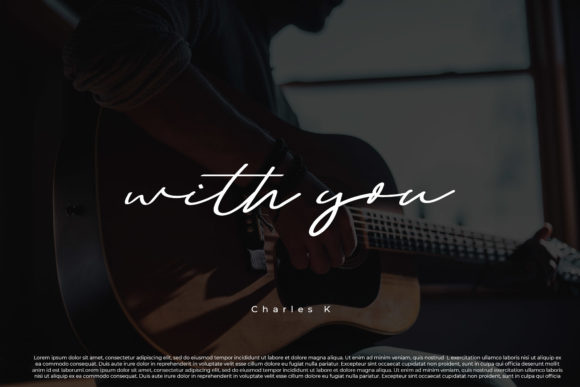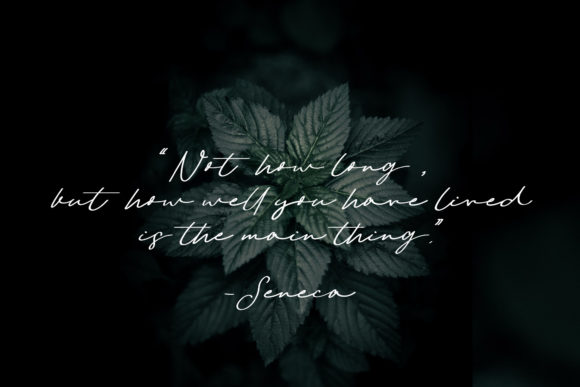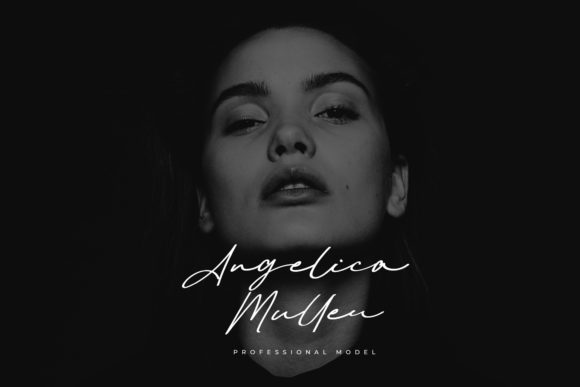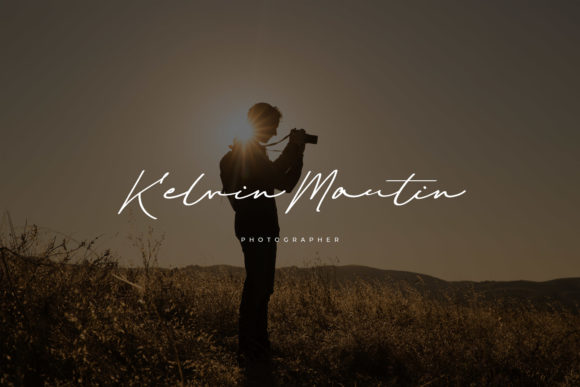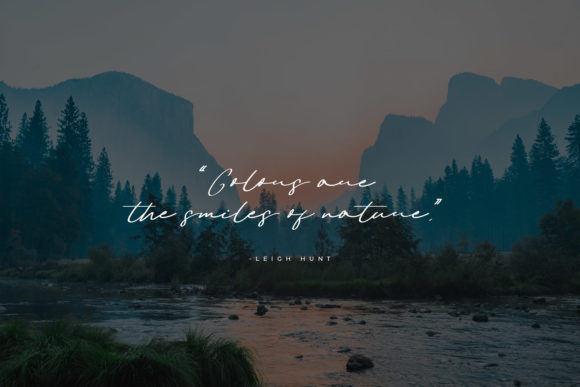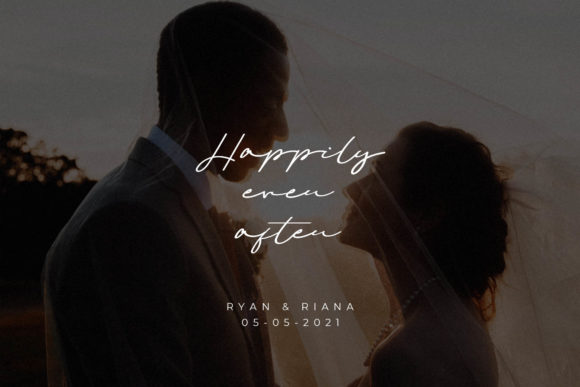
Introduction to Amostne Font
Amostne is a signature font with elegant lines, suitable as logotype, for the name of your brand, business cards and so on.
Amostne contains standard English letters and several letters that support multilingualism Can be installed in applications such as the adobe family, affinity, or other similar applications.
Amostne Font offers exceptional quality and versatility, making it a valuable addition to your design toolkit. Whether you’re creating for personal projects or commercial use, Amostne Font delivers professional results.